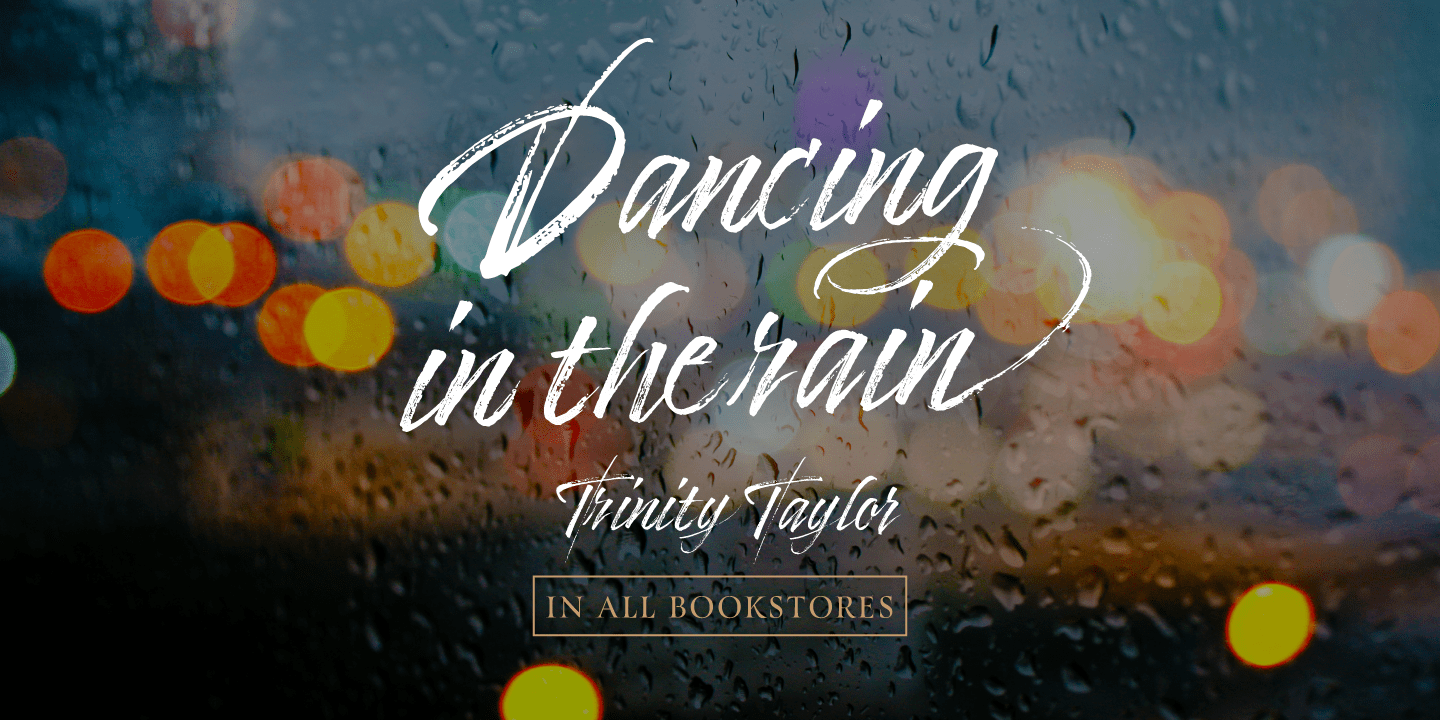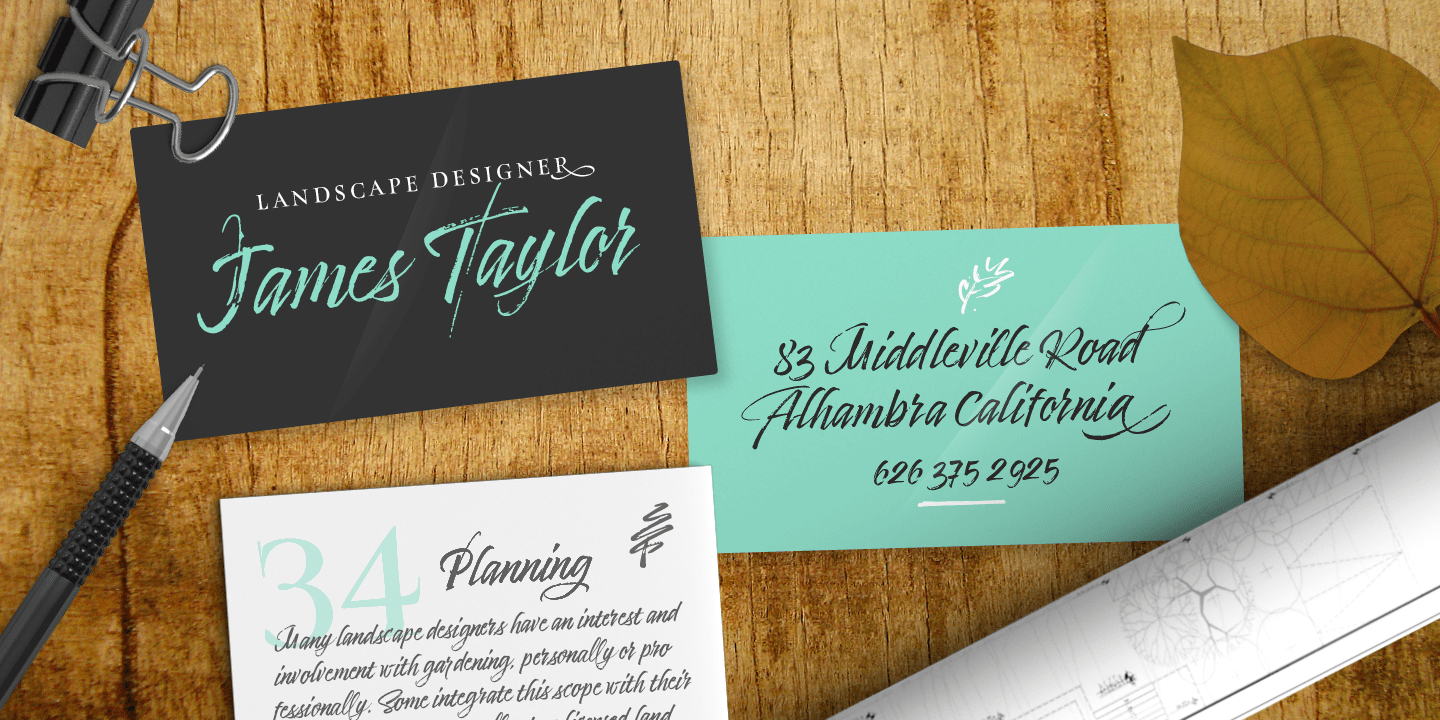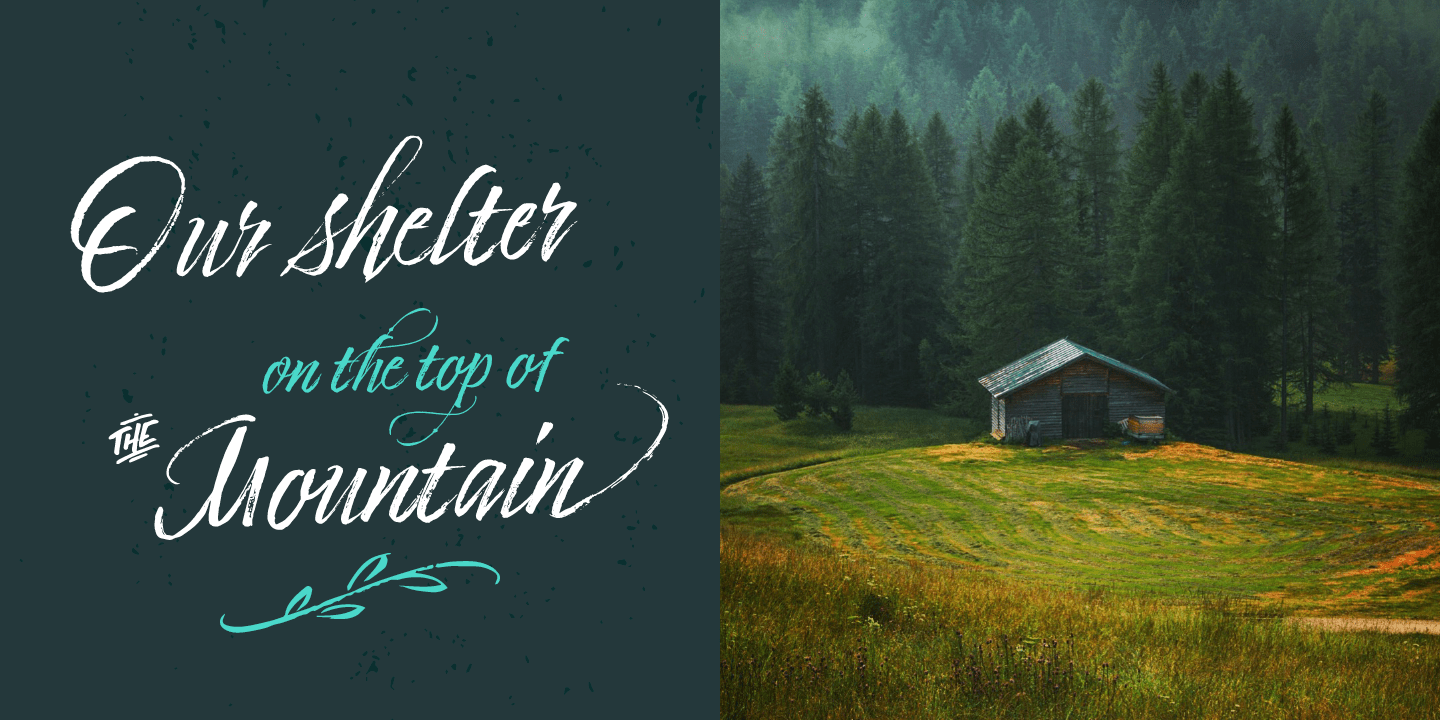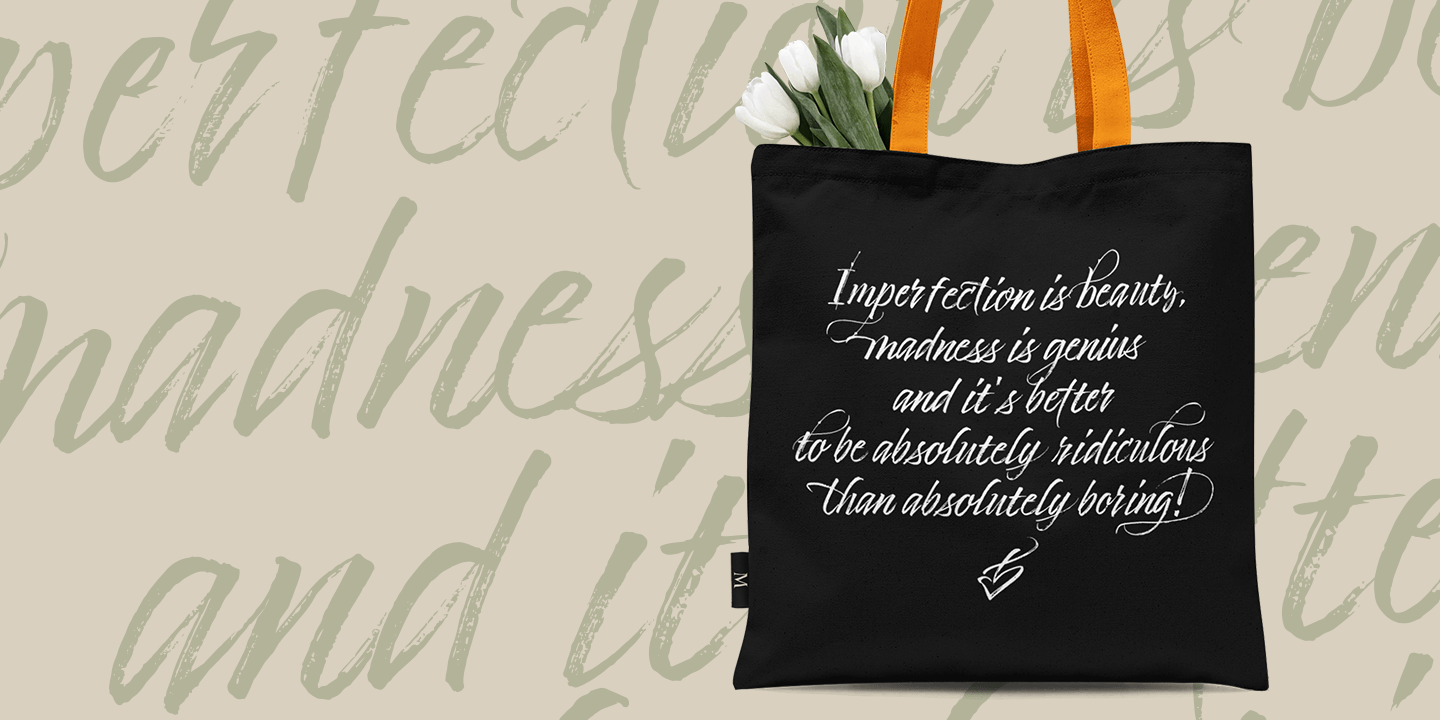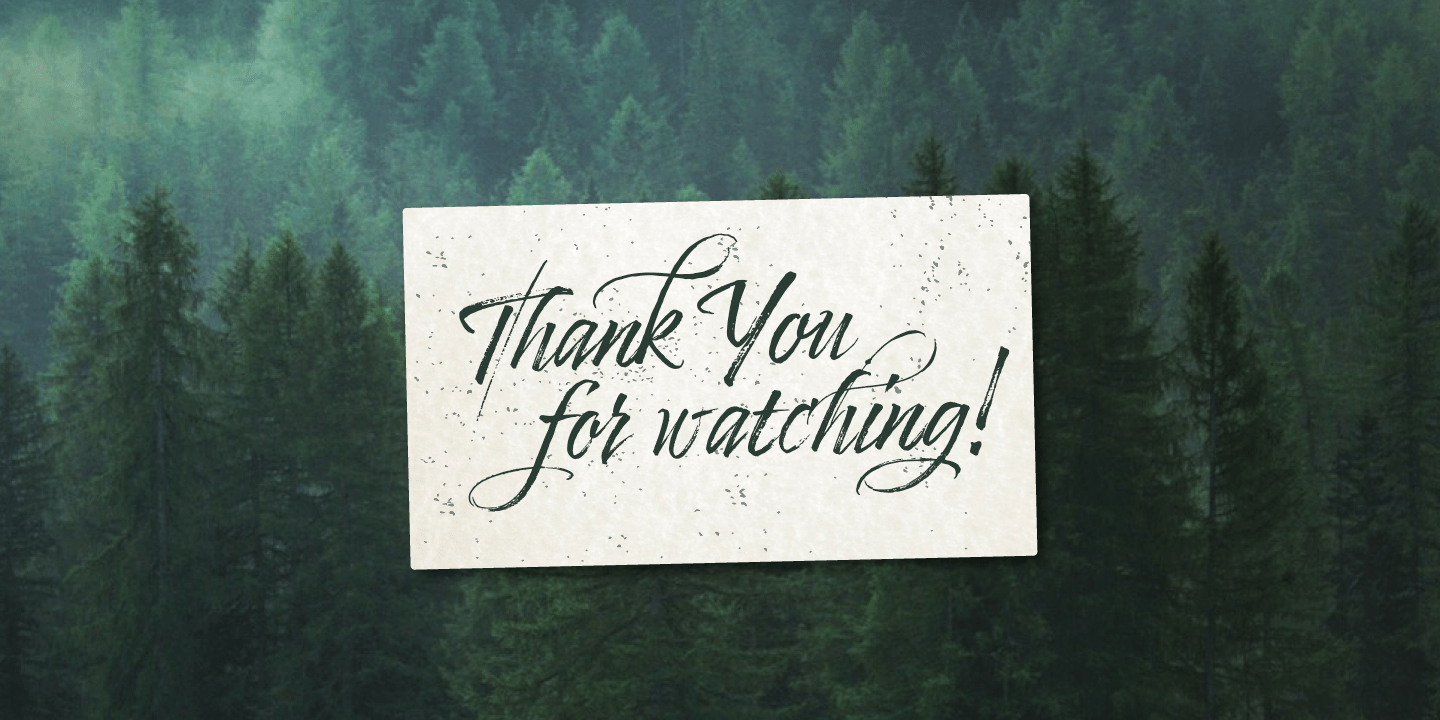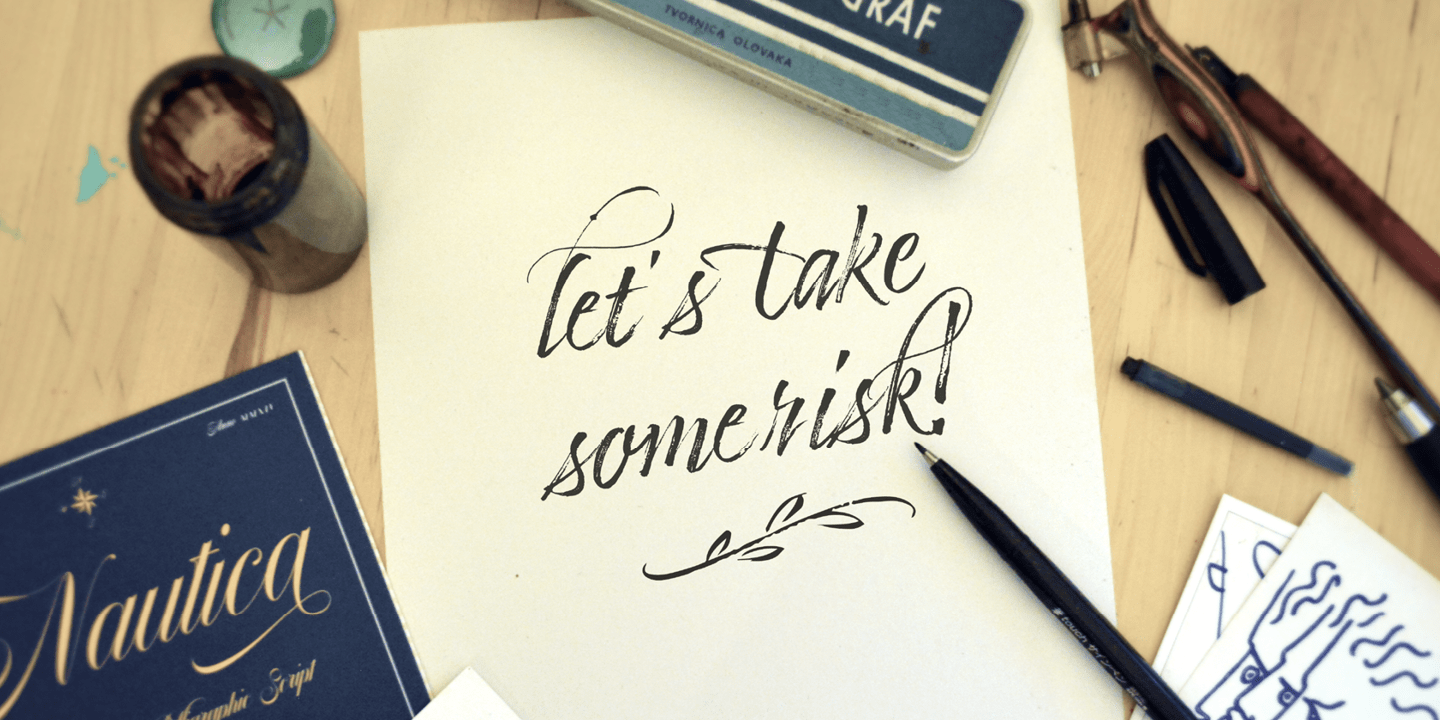
About Timberline
Timberline is a new handwritten font full of character with textured lines and graceful strokes. A casual handwritten script to get the perfect look you need for your design. Timberline Icons is the perfect match to this font. A collection of catchwords,…